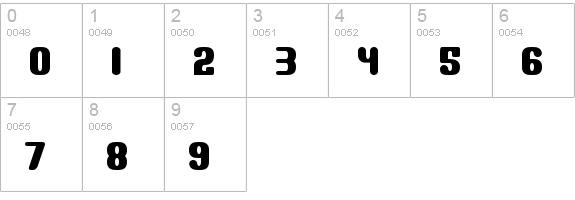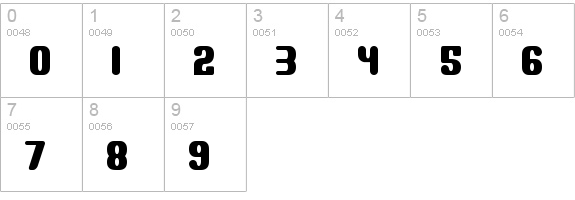
Monster Font Details
Introducing Monster font, a whimsical and playful typeface perfect for adding a touch of fun to your design projects. This eye-catching font features bold, exaggerated letterforms that are sure to make a statement. Whether you're creating posters, invitations, or branding materials, Monster font will bring a unique and lively element to your work. Best of all, Monster font is completely free to download at FontsMarket.com. This means you can unleash your creativity without any cost barriers, making it an ideal choice for both personal and commercial projects. Don't miss out on the opportunity to add this delightful font to your collection today!